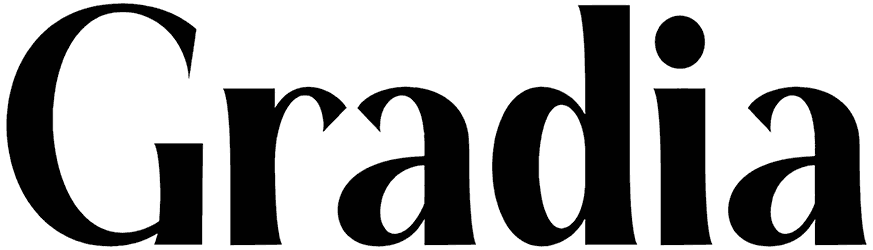
Gradia Font
Once you work with a swash font like Gradia, it’ll be pretty hard to settle for other options. Not all fancy fonts can come close to the magnificent style of such a masterpiece.
As soon as you add this serif font to your toolkit, you’re going to wish for more opportunities to throw Gradia into your lettering and make things classier and more tasteful. That includes any artistic business cards for promoting luxury brands of fashion, jewelry, perfume, and more.